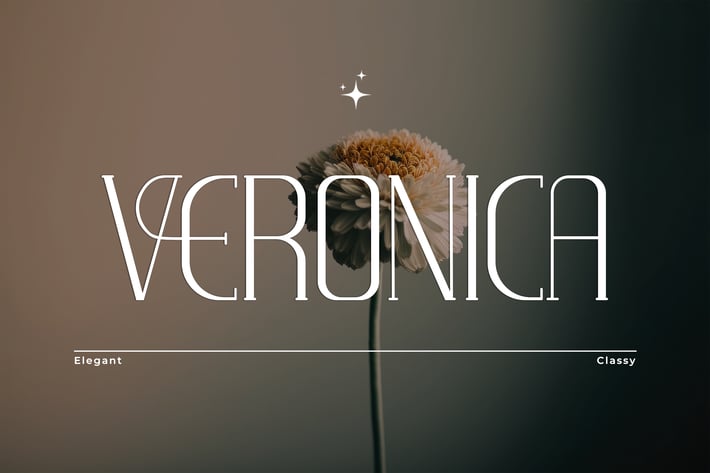
Veronica – An Elegant Classy Serif Font
Introducing Veronica, an elegant and classy serif font designed to bring sophistication to your creative projects. With its refined letterforms, graceful curves, and modern styling, Veronica is perfect for high-end branding, editorial designs, luxury packaging, wedding invitations, and more.
This typeface embodies both classic charm and contemporary elegance, making it a versatile choice for designers who seek a refined yet stylish look. Veronica includes a full set of uppercase and lowercase letters, numerals, punctuation, and multilingual support, ensuring flawless typography across various applications.
Whether you're designing a premium logo, a fashion magazine, or elegant stationery, Veronica adds a touch of luxury and finesse to any project.
Introducing Veronica, an elegant and classy serif font designed to bring sophistication to your creative projects. With its refined letterforms, graceful curves, and modern styling, Veronica is perfect for high-end branding, editorial designs, luxury packaging, wedding invitations, and more.
This typeface embodies both classic charm and contemporary elegance, making it a versatile choice for designers who seek a refined yet stylish look. Veronica includes a full set of uppercase and lowercase letters, numerals, punctuation, and multilingual support, ensuring flawless typography across various applications.
Whether you're designing a premium logo, a fashion magazine, or elegant stationery, Veronica adds a touch of luxury and finesse to any project.